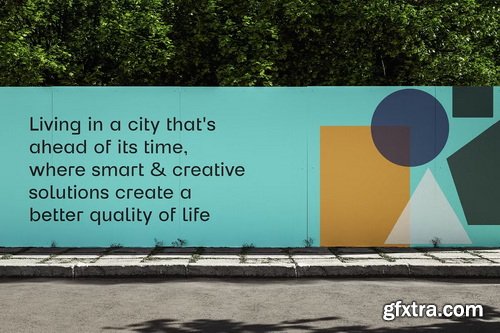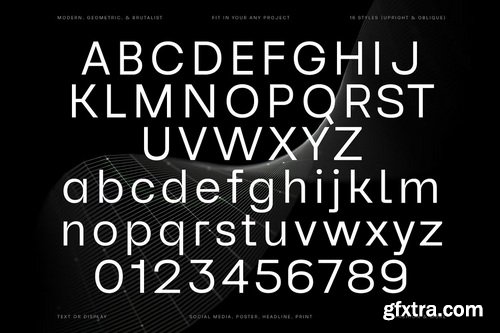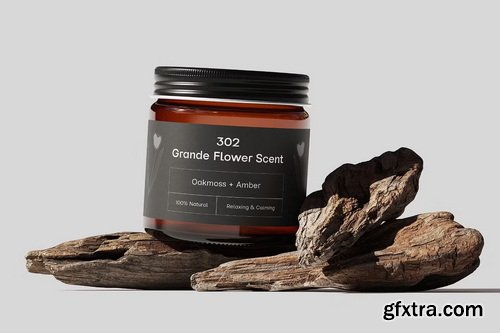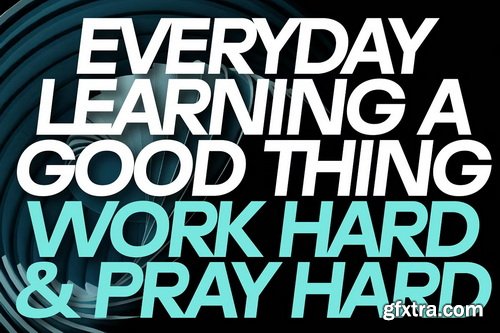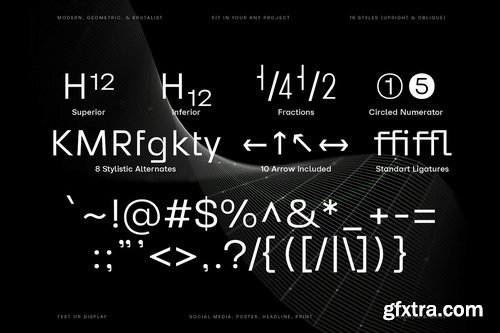
Reflow Sans is a modern and versatile sans-serif geometric typeface infused with subtle grotesque elements and high contrast. It delivers simplicity and naturality while exuding a strong personality with refined proportions. Designed for readability and versatility, this font family balances clean, brutalist style and geometric precision with the warmth and flexibility of grotesque design. These geometric, high-contrast grotesque fonts are crafted with impeccable legibility and sleek, seamless aesthetic appeal. They are clean, modern, and versatile options for any project, including fashion, print design, social media, creatives, branding, UI/UX, web typography, packaging, or editorial design. They will elevate your creative projects and keep your designs on-trend.